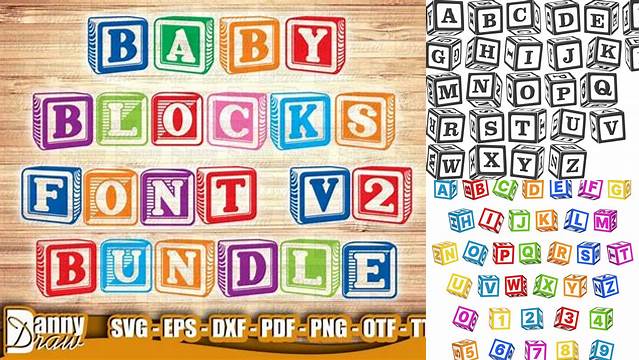
Free 3D Baby Block Font Generator: Create Cute Text!
Hey guys! Ever needed a super cute and playful font for a baby shower invite, a nursery decoration, or a special birthday card? 3D baby block fonts are the way to go! They're fun, they're cheerful, and they instantly add a touch of whimsy to any project. The best part? You can find awesome 3D baby block font generators online for free! This article dives into the world of these fantastic tools, explores why they're so popular, and shows you how to use them to create amazing designs. Let’s get started!
What are 3D Baby Block Fonts?
3D baby block fonts are exactly what they sound like: fonts designed to look like those classic, colorful baby blocks we all know and love. They often feature bold, rounded shapes with a distinct three-dimensional appearance, giving them a playful and eye-catching vibe. These fonts are perfect for anything related to babies, kids, or even just fun and lighthearted projects. They evoke a sense of nostalgia, joy, and innocence, making them a wonderful choice for a wide range of creative endeavors. The use of a 3D effect adds depth and visual interest, making the text pop and grab attention. Imagine using these fonts for personalized gifts, educational materials, or even social media graphics! The possibilities are endless, and the impact is always significant. The charm of 3D baby block fonts lies in their ability to transform ordinary text into something extraordinary, instantly injecting personality and warmth into any design. Think about how a simple word like "Welcome" can become an invitation to joy and celebration when rendered in a playful baby block font. That’s the magic of these fonts – they’re not just about communication; they’re about creating an experience, a feeling, a connection. They’re about making your message memorable and delightful, whether it's for a tiny human or for the young at heart. So, whether you're designing a banner for a baby shower, creating a custom nameplate for a child's room, or simply adding a touch of fun to your digital content, 3D baby block fonts are your secret weapon for spreading smiles and capturing hearts. They're a versatile tool that brings the spirit of childhood to life, one letter at a time.
Why Use a 3D Baby Block Font Generator?
Okay, so you might be thinking, “Why should I bother with a 3D baby block font generator? Can’t I just download a regular font?” Well, guys, there are some seriously cool advantages to using a generator specifically designed for this style! First off, these generators often offer a level of customization that you just won't find with pre-made fonts. You can tweak colors, adjust the 3D effect, and sometimes even add extra details like patterns or textures to the blocks. This means you can create a truly unique and personalized look that perfectly matches your project's theme and style. Think about being able to perfectly coordinate the font colors with the nursery décor or matching the font style to the overall design of your baby shower invitation. That level of control is a game-changer! Another huge benefit is the convenience. Many of these generators are online tools, meaning you don't have to download and install any software. You can access them from anywhere with an internet connection, making it super easy to create on the go. Plus, they're often incredibly user-friendly, with intuitive interfaces that make the design process a breeze, even if you're not a graphic design pro. The ease of use combined with the customization options makes a 3D baby block font generator an invaluable tool for anyone working on baby-themed projects. And let's not forget the cost – many of these generators are completely free! That's right, you can create stunning, professional-looking fonts without spending a dime. This is especially great if you're on a budget or just want to try out different styles before committing to a paid option. In essence, a 3D baby block font generator gives you the power to create amazing designs quickly, easily, and affordably. It's like having your own personal font-making studio at your fingertips, ready to bring your creative visions to life. So, whether you're a seasoned designer or a DIY enthusiast, these generators are definitely worth checking out. They'll help you add that special touch of whimsy and fun to your projects, making them truly stand out and capture hearts.
Features to Look for in a Free 3D Baby Block Font Generator
When you're on the hunt for a free 3D baby block font generator, it's crucial to know what features to look for to ensure you get the best results. Not all generators are created equal, guys, so let’s break down the key elements that will make your font-creating experience smooth and successful. First and foremost, customization options are paramount. A great generator will allow you to change the colors of the blocks, tweak the depth and angle of the 3D effect, and adjust the font size and spacing. The more control you have over these parameters, the more unique and personalized your fonts will be. Imagine being able to create a font where each block has a different pastel shade or adjust the 3D depth to make the font pop even more. That’s the kind of flexibility you want. Secondly, ease of use is essential. Nobody wants to spend hours wrestling with a complicated interface. Look for a generator with a clear, intuitive design that allows you to quickly input your text, adjust the settings, and preview the results. A drag-and-drop interface, real-time previews, and helpful tooltips can make a huge difference in your workflow. Time is precious, and a user-friendly generator will save you tons of it. Font styles and options are also something to consider. Does the generator offer different block shapes, font styles (like serif or sans-serif), or even the ability to add patterns or textures to the blocks? The more variety, the better! You might want a classic, square block design for one project and a more modern, rounded block for another. Having options gives you the creative freedom to match the font perfectly to your vision. Finally, consider the output format. Can you download the font as a PNG, JPG, or SVG? Being able to download in a vector format like SVG is particularly beneficial because it allows you to scale the font without losing quality, which is essential for print projects. The output format dictates how versatile the font will be in different applications. By keeping these features in mind, you'll be well-equipped to find a free 3D baby block font generator that meets your needs and empowers you to create stunning, personalized fonts for all your baby-themed projects. It's all about finding the right tool to unleash your creativity and bring your design ideas to life.
Step-by-Step Guide to Using a 3D Baby Block Font Generator
Alright, let’s get down to the nitty-gritty and walk through how to actually use a 3D baby block font generator. Don’t worry, it’s easier than you think, guys! Most of these tools follow a pretty similar process, so once you get the hang of one, you’ll be a pro at them all. First things first, you’ll need to choose a generator. There are tons of options out there, as we discussed earlier, so pick one that offers the features you need and has a user-friendly interface. Once you’ve made your choice, head over to the website and get ready to create! The first step is usually entering your text. Look for a text box where you can type in the word, phrase, or name you want to transform into a baby block font. This is where your creative journey begins! Next up is the fun part: customizing your font. This is where you get to play around with all those awesome features we talked about. Start by selecting your desired colors. Most generators offer a color palette or a color picker, allowing you to choose the perfect hues for your blocks. Consider the overall theme of your project and select colors that complement it. Do you want soft pastels, bright primary colors, or a mix of both? It’s all up to you! Then, dive into the 3D settings. You can typically adjust the depth of the blocks, the angle of the 3D effect, and even the lighting to create the perfect look. Experiment with different settings to see what works best for your text. A subtle 3D effect can add a touch of elegance, while a more pronounced effect can create a bold and playful vibe. Don't forget to tweak the font size and spacing. You'll want to ensure your text is legible and visually appealing. Adjust the size to fit your design and play around with the letter spacing to achieve the desired look. Too much spacing can make the text look disjointed, while too little can make it appear cramped. Once you’re happy with your design, it’s time to preview your font. Most generators offer a preview option that allows you to see how your font will look before you download it. Take advantage of this feature to make any final adjustments. If everything looks perfect, you’re ready to download your font! Choose your preferred file format (PNG, JPG, SVG, etc.) and save your creation to your computer. And there you have it! You’ve just created your own custom 3D baby block font using a free generator. Now you can use your font in all sorts of projects, from invitations and banners to social media graphics and personalized gifts. The possibilities are endless, so get creative and have fun!
Creative Uses for 3D Baby Block Fonts
Now that you know how to generate these awesome fonts, let’s brainstorm some creative uses for 3D baby block fonts! Seriously, guys, the possibilities are endless, and these fonts can add a touch of whimsy and fun to so many different projects. One of the most popular uses is for baby showers. Think about using a 3D baby block font to create eye-catching invitations, banners, and even cake toppers! Imagine a banner that spells out “Welcome Baby [Name]” in adorable, colorful blocks – how cute is that? You can also use the font to personalize favors or create custom thank-you notes. A cohesive design theme can make your baby shower even more special and memorable. Nursery décor is another fantastic application for these fonts. Create personalized name signs for the nursery walls, design alphabet posters, or even make custom growth charts. A 3D baby block font can add a playful touch to the room and create a warm and inviting atmosphere for your little one. Consider spelling out the baby's name above the crib or creating a series of framed prints with inspirational quotes in the font. The possibilities are truly endless, and the result is a space that feels uniquely yours. Birthday parties are another great occasion to use these fonts. Whether it's a first birthday or a fifth, a 3D baby block font can add a festive touch to invitations, party favors, and decorations. Create a birthday banner that spells out the birthday child’s name, design custom cupcake toppers, or even personalize party hats. The playful nature of the font makes it perfect for celebrating milestones and creating a fun and memorable party atmosphere. Beyond special occasions, 3D baby block fonts can also be used for educational materials. Think about creating flashcards, alphabet charts, or even interactive learning games. The font’s clear and playful design can make learning more engaging and enjoyable for young children. Imagine a set of flashcards with letters and corresponding images, all rendered in a bright and cheerful 3D baby block font. It’s a fun and effective way to introduce kids to the alphabet and help them develop their reading skills. And let's not forget personalized gifts! A custom-made gift with a name or message in a 3D baby block font is sure to be cherished for years to come. Think about creating a personalized baby blanket, a custom nameplate for a child’s room, or even a set of engraved blocks. These thoughtful gifts show that you put extra care and effort into creating something truly special. So, as you can see, there are countless creative uses for 3D baby block fonts. Whether you're planning a baby shower, decorating a nursery, throwing a birthday party, creating educational materials, or making personalized gifts, these fonts can add a touch of whimsy and fun to your projects. So go ahead, unleash your creativity and let these fonts bring your ideas to life!
Top Free 3D Baby Block Font Generators Online
Okay, guys, now that you're all fired up about using 3D baby block fonts, let's dive into some of the top free 3D baby block font generators online. There are quite a few options out there, so I've rounded up some of the best to get you started. Keep in mind that features and interfaces can vary, so it’s always a good idea to try out a few to see which one you like best! One popular choice is Cool Text (cooltext.com). This website offers a wide range of text effects, including a 3D baby block style. It's super easy to use – just type in your text, choose your colors and font size, and you're good to go. Cool Text also offers a variety of other design options, so it’s a great resource for all sorts of graphic design projects. The interface is clean and intuitive, making it a great option for beginners. Another fantastic option is TextPro (textpro.me). TextPro has a dedicated 3D baby block font generator that lets you create adorable, block-style text in seconds. You can customize the colors, add shadows, and even choose from different block arrangements. TextPro’s generators often have a more polished and professional look, making them ideal for projects where you want to make a strong visual impact. Font Meme (fontmeme.com) is another excellent resource. While Font Meme doesn't have a dedicated generator, it does offer a huge collection of fonts, including some that mimic the 3D baby block style. You can also use their text effects generator to create custom designs using these fonts. Font Meme is a great place to find inspiration and explore a wide range of font styles. Online Text Effects (onlinetexteffects.com) is another website worth checking out. They have a variety of text effect generators, including options that create a blocky, 3D look. While it might not be specifically labeled as a “baby block” font, you can often tweak the settings to achieve a similar effect. Online Text Effects is a versatile tool that’s worth exploring if you’re looking for unique and customizable text effects. 3DTextMaker (3dtextmaker.com) is, as the name suggests, dedicated to creating 3D text effects. While their selection of styles might not be as extensive as some other sites, they do offer some blocky, 3D options that could work well for baby-themed projects. The focus on 3D effects means you can often achieve a high level of depth and realism in your text designs. When using these free 3D baby block font generators, remember to experiment with different settings and features to find the perfect look for your project. Don’t be afraid to try out multiple generators to see which one best suits your needs. With a little creativity and exploration, you’ll be creating adorable and eye-catching fonts in no time!
Tips for Designing with 3D Baby Block Fonts
So, you’ve chosen your generator, created your awesome 3D baby block font, now what? Let’s talk about some tips for designing with 3D baby block fonts to make your creations truly stand out. These fonts are super fun, but a few design principles can help you make the most of their playful nature. First up, color is key. Baby block fonts are all about bright, cheerful colors, so don’t be afraid to experiment with bold hues! Think about using a mix of primary colors (red, blue, yellow) for a classic look, or opt for soft pastels for a more gentle and whimsical feel. You can also consider using complementary colors to create visual interest. Just remember to choose colors that work well together and don't clash. A well-chosen color palette can make your font pop and add to the overall appeal of your design. Legibility is crucial. While 3D baby block fonts are visually appealing, it’s important to ensure that your text is still easy to read. Avoid using overly complex fonts or too many different font styles in one design. Stick to simple, clear fonts that are easy to decipher, especially for important messages like names or dates. Adjust the font size and spacing to ensure that your text is legible from a distance or at a glance. Remember, the goal is to communicate effectively while still adding a touch of fun. Consider the context. Think about where your font will be used and design accordingly. A font that looks great on a baby shower invitation might not be the best choice for a nursery wall decal. Consider the size, scale, and viewing distance of your design when choosing your font. For example, a larger, bolder font might be ideal for a banner, while a smaller, more delicate font might be better suited for a gift tag. Balance is important. When incorporating 3D baby block fonts into your designs, strive for balance. Don’t overcrowd your design with too much text or too many elements. Leave some white space to allow your font to breathe and prevent your design from feeling cluttered. A well-balanced design is visually appealing and easy on the eyes. Experiment with effects. Many font generators offer additional effects, such as shadows, outlines, or textures. Don't be afraid to experiment with these to add depth and visual interest to your fonts. A subtle shadow can enhance the 3D effect, while an outline can make your font stand out against a busy background. Textures can add a unique tactile quality to your designs. Just remember to use these effects sparingly and in a way that complements your font. By keeping these tips in mind, you can create stunning designs with 3D baby block fonts that are both visually appealing and effective. These fonts are a fantastic way to add a touch of fun and whimsy to any project, so get creative and let your imagination run wild!
So, there you have it, guys! Everything you need to know about 3D baby block font generators! These tools are a fantastic way to create adorable and personalized fonts for all sorts of baby-themed projects. From baby showers to nursery décor, these fonts can add a touch of fun and whimsy to your designs. We’ve explored what 3D baby block fonts are, why you should use a generator, what features to look for, how to use a generator step-by-step, creative uses for the fonts, some of the top free generators online, and even some design tips to help you create stunning visuals. Now it’s your turn to get creative! Choose a generator, experiment with different styles and colors, and unleash your inner designer. Whether you're a seasoned graphic designer or a DIY enthusiast, 3D baby block font generators offer a fun and easy way to create custom fonts that are sure to bring a smile to anyone’s face. The ability to customize colors, adjust 3D effects, and experiment with different styles means you can create a font that perfectly matches your vision. And with so many free generators available online, there’s no limit to the creative possibilities. Imagine the joy of creating a personalized banner for a baby shower, designing a custom name sign for a nursery, or crafting a heartfelt birthday card with a font you made yourself. These small details can make a big difference in how your projects are received and remembered. So, don’t be afraid to dive in and explore the world of 3D baby block fonts. They’re a versatile and playful design element that can add a special touch to any project. With a little creativity and the right tools, you can transform ordinary text into something extraordinary. Get started today and let your imagination run wild! Happy creating!